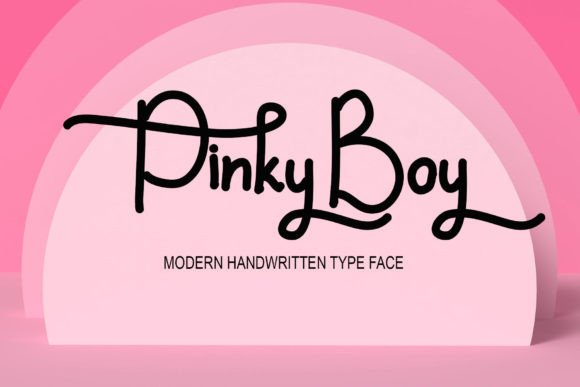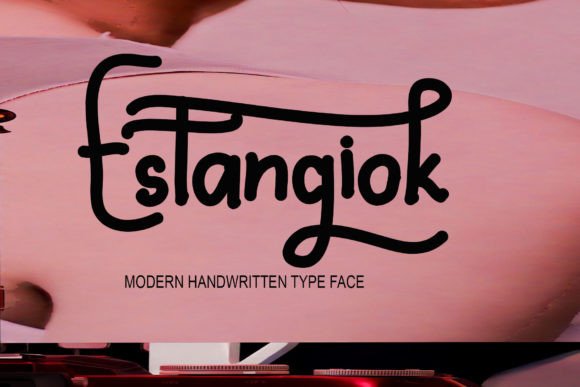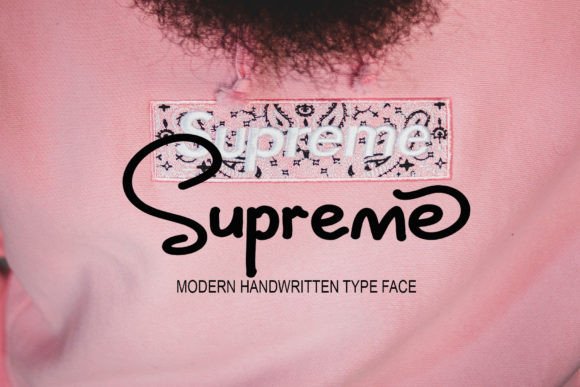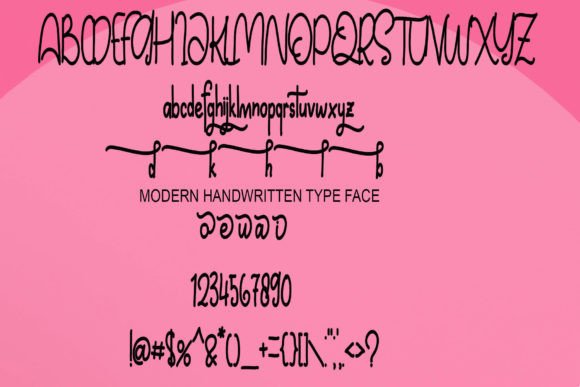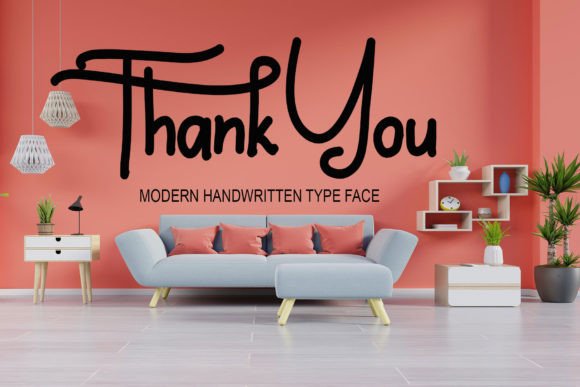
Introduction to Qarganeh Font
One such resource that can bring a spark to your creative project is the Qarganeh Font. This fun and quirky handwritten font is a high-quality addition to any design arsenal. With its unique character and versatility, it’s perfect for adding a touch of personality to your designs.
Key Features of Qarganeh Font
- Unique characteristics include a distinctive Persian-inspired aesthetic, making it perfect for projects with a Middle Eastern flair.
Honest Review: Qarganeh Font
I recently stumbled upon the Qarganeh Font, and I must say it’s been a game-changer for my current design project. This high-quality font is a fantastic addition to any design resource, offering a unique and elegant touch to any creative project.
One of the standout features of the Qarganeh Font is its versatility. It works well for a variety of design applications, from branding and advertising to digital products and publications. The font’s sleek and modern design makes it perfect for creating a sophisticated and professional look.
- High-quality design: The font is crisp and clear, making it perfect for printing or digital use.
- Limited character set: The font may not have the full range of characters required for complex designs.
- No bold or italic variations: The font only comes in a regular weight, which may limit its use in certain design applications.
Overall, I’m extremely impressed with the Qarganeh Font. It’s a fantastic addition to any design resource, and I highly recommend it for any creative project.
Design Resource for Your Creative Project
The Qarganeh Font is a high-quality design resource that offers a unique and elegant touch to your creative project. With a transparent background, this font is perfect for adding a touch of sophistication to your designs.
Tips for Getting the Most Out of Qarganeh Font
To get the most out of Qarganeh Font, try experimenting with different font sizes, colors, and combinations. This font is perfect for creating visually appealing headings and titles.
The Qarganeh Font is commonly used in:
- Business cards and invitations
Alternatives to Qarganeh Font
Comparison to Qarganeh Font: Bebas Neue Font has a more straightforward and geometric design, whereas Qarganeh Font has a more intricate and ornate style. While Qarganeh Font excels in creating a unique and elegant look, Bebas Neue Font is perfect for projects that require a modern and sophisticated feel.
Comparison to Qarganeh Font: Open Sans Font is more versatile and easy to read compared to Qarganeh Font, which has a more decorative and ornate style. While Qarganeh Font is ideal for creative projects that require a unique look, Open Sans Font is a better choice for design projects that require a high-quality and professional feel.